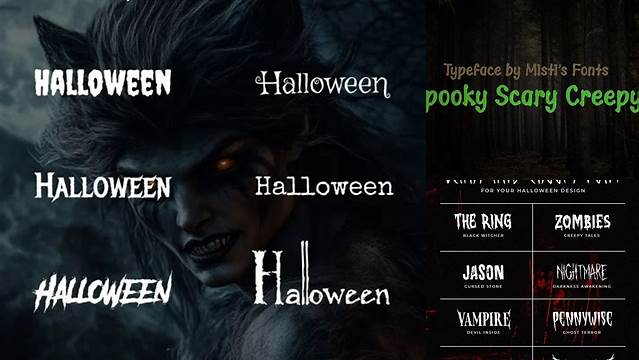
Creepy Fonts On DaFont: Your Guide To Spooky Typography
Alright, guys, let's dive into the world of scary fonts on DaFont! If you're looking to add a touch of the macabre to your designs, you've come to the right place. DaFont is a treasure trove of fonts, and nestled amongst the thousands are some truly terrifying typography options. Whether you're crafting a Halloween invitation, designing a chilling website, or just want to give your text a bit of an edge, this guide will help you navigate the spooky side of DaFont. We'll explore various font styles, from blood-dripping scripts to bone-chilling serifs, and show you how to find and use them effectively. Get ready to unleash your inner ghoul and transform your projects into something truly frightful! Let's get started and make sure your designs are screaming with style.
Exploring the Best Scary Fonts on DaFont
When you search for scary fonts on DaFont, you'll be greeted with a plethora of options, each with its unique personality and level of creepiness. The key is knowing what to look for and how to match the font to your project's theme. Think about the overall aesthetic you're going for: are you aiming for a classic horror vibe, something more modern and edgy, or a playful, cartoonish scare? DaFont has something for every taste, so let's break down some of the popular categories. You'll find everything from fonts that mimic handwritten notes from a serial killer to fonts that look like they were carved into a tombstone. Don't forget to check the license details for each font before using it, ensuring you comply with the creator's terms. Keep an eye out for special characters and ligatures that add to the overall creepy effect. Also, think about the readability of the font, ensuring your message is clear even with a spooky design. It's all about finding the perfect font to tell your horror story without sacrificing clarity. This exploration is essential, as the right font can elevate your design from ordinary to extraordinarily terrifying. The right choice can really make a statement and enhance your project's appeal.
Gothic and Blackletter Fonts for a Classic Horror Look
For a timeless horror feel, Gothic and Blackletter fonts are your go-to. These fonts evoke the atmosphere of old gothic novels and classic horror films. Characterized by their ornate, often angular letterforms, they exude an air of mystery, darkness, and historical dread. Many of these fonts feature elaborate flourishes and calligraphic details, perfect for creating a sense of foreboding and sophistication. When browsing DaFont, search for terms like 'Gothic,' 'Blackletter,' 'Old English,' or 'Uncial' to find these treasures. Be mindful of readability; while these fonts are striking, they can be challenging to read in large blocks of text. Use them strategically for headlines, titles, and short passages to maximize their impact. Strong Gothic and Blackletter fonts can transform your designs, giving them a touch of class and darkness. They are ideal for projects related to vampires, ghosts, and other classic horror themes. Moreover, consider pairing these fonts with distressed textures or dark backgrounds to enhance the overall effect. Experiment with different font sizes and weights to discover which combination best suits your project. These fonts have an undeniable allure, perfectly suited to create a sense of foreboding and intrigue. Choosing the right one can truly make your design stand out.
Creepy Script Fonts: The Handwriting of the Damned
Creepy script fonts on DaFont can bring a personal and unsettling touch to your designs. These fonts often mimic handwritten styles, ranging from elegant, slightly distorted scripts to frantic and erratic scribbles. They can evoke a sense of intimacy and vulnerability, making them perfect for conveying messages of terror or suspense. Imagine a font that looks like it was penned by a madman or a secret message scrawled in blood – that's the power of a well-chosen script font. Search DaFont for terms like 'script,' 'handwritten,' 'horror,' or 'blood' to find fonts that fit the bill. Be cautious with readability; overly stylized script fonts can be difficult to decipher. Use them sparingly for emphasis or to create a unique, personalized feel. Consider pairing them with more straightforward fonts for body text to maintain balance. These fonts are perfect for creating a sense of unease and mystery. The right script can really add a sense of urgency. These fonts are invaluable for any project wanting to convey a personal touch of dread, be it an invitation to a haunted house or a spooky story.
Horror Display Fonts: Bold and Unforgettable
Horror display fonts on DaFont are your attention-grabbers. Designed for maximum visual impact, these fonts are bold, dramatic, and often feature unique, eye-catching elements. Think dripping blood, cracked textures, or distorted letterforms. These fonts are perfect for headlines, titles, and any text that needs to scream for attention. They come in various styles, from cartoonish and playful to seriously terrifying. Use these fonts to make a statement, but avoid overusing them, as they can easily overwhelm a design. Consider using them selectively and pairing them with more neutral fonts to balance the visual weight. When choosing a display font, think about its readability at different sizes and its overall compatibility with your project's theme. Are you going for a zombie apocalypse vibe or a classic haunted mansion? The choice of font should align with the overall tone you want to set. These fonts can really set the tone of a design. The key is to use them strategically to ensure they complement, rather than compete with, other design elements. They are perfect for posters, book covers, and other projects where you want to make a big impression.
Designing with Scary Fonts: Tips and Tricks
Designing with scary fonts is an art form. It's about creating a sense of unease and dread without sacrificing readability or aesthetic appeal. Consider these tips and tricks to create truly haunting designs. The font is only one part of the design; the other elements can work in harmony. Your design should match your brand. Combining different elements is a powerful tactic to make your design better.
Pairing Fonts for a Harmonious Horror Aesthetic
Font pairing is crucial when using scary fonts. Avoid using multiple overly decorative fonts in the same design, as this can lead to visual chaos. Instead, choose a main scary font for headlines and titles and pair it with a more legible font for body text. This creates visual interest while ensuring readability. Consider the contrast between fonts. A bold, gothic font might pair well with a clean, modern sans-serif for the body text. Experiment with different pairings to find what works best for your project. Also, try pairing a more traditional font with a modern font. Think about the mood you want to create. The right font pairing can make your design more effective. Keep in mind the context of your design to choose your fonts well. Using a neutral or subtle font to complement a display font will make the text stand out. Good font pairing is essential for any good design. It improves the overall aesthetic and usability of your design.
Conclusion: Unleash Your Inner Horror Designer
Alright, guys, we've covered a ton of ground, from finding and downloading scary fonts on DaFont to designing with them effectively. Now it's time to take what you've learned and unleash your inner horror designer! Remember to experiment, have fun, and don't be afraid to get creative. DaFont is an amazing resource, and with a little bit of exploration, you can transform your designs into something truly terrifying. Go forth and create some spooky magic! The best part is to embrace your creativity. Your creativity and skill will define you. Go on and create designs.